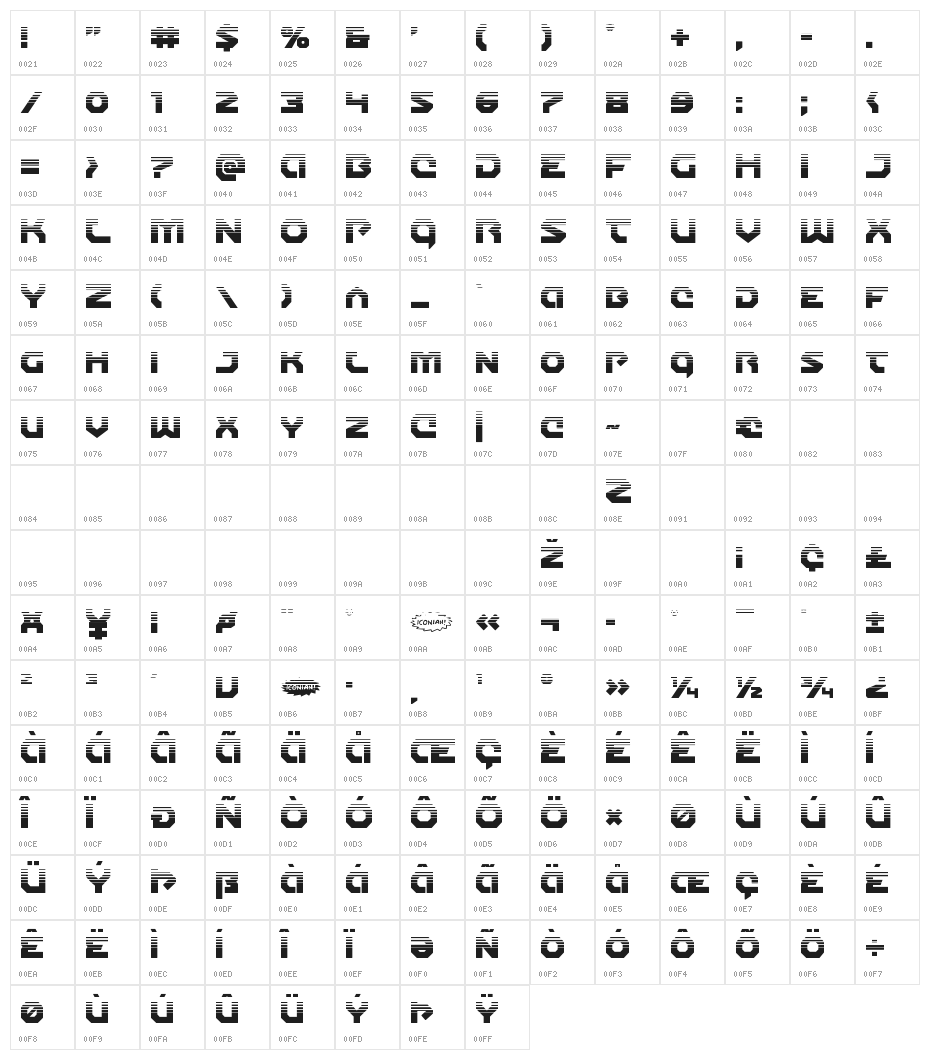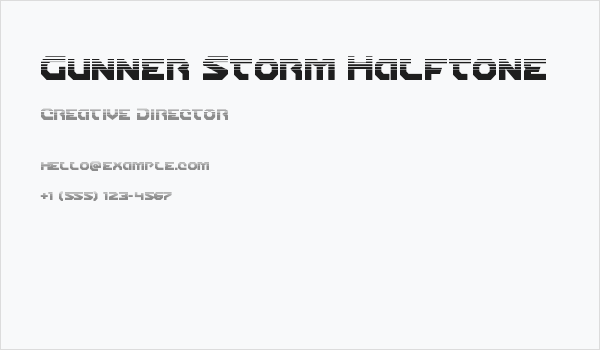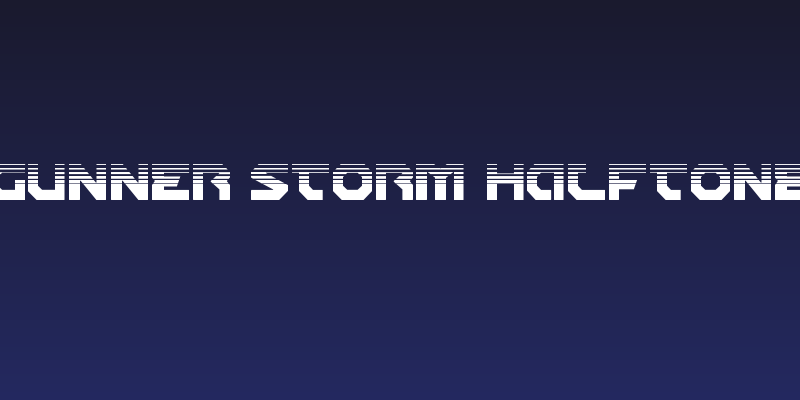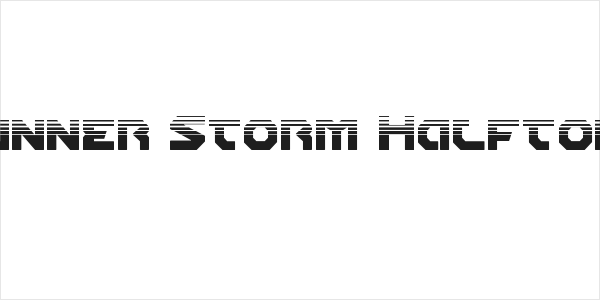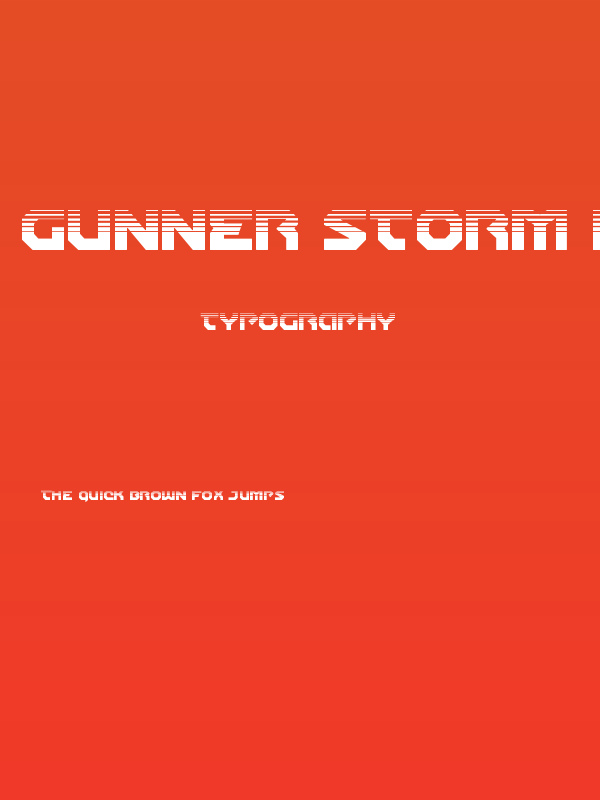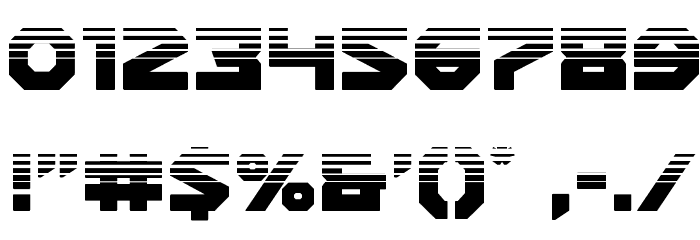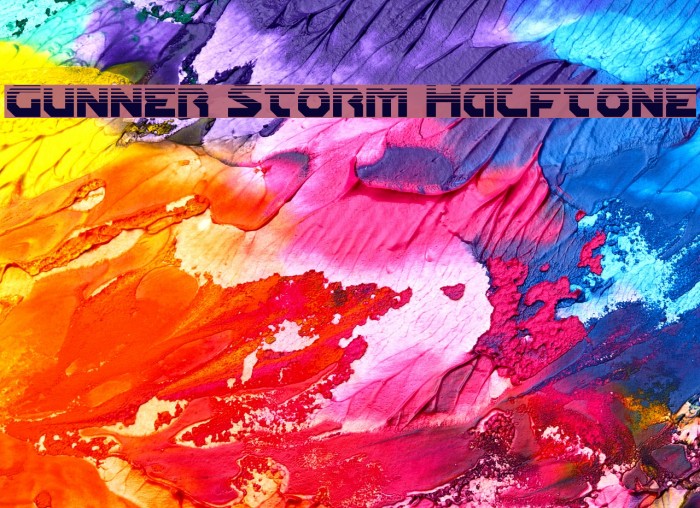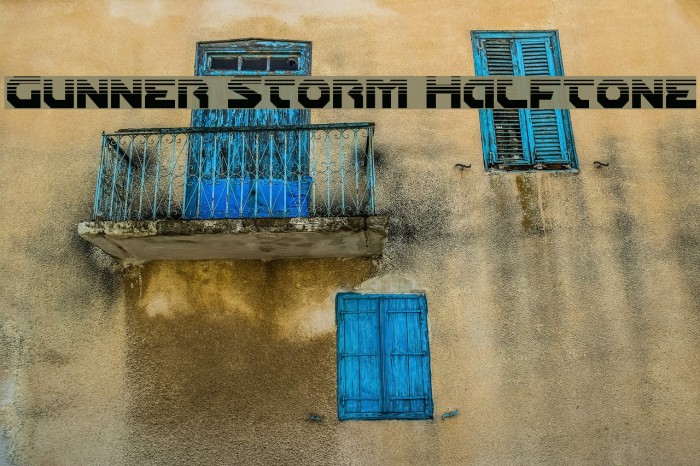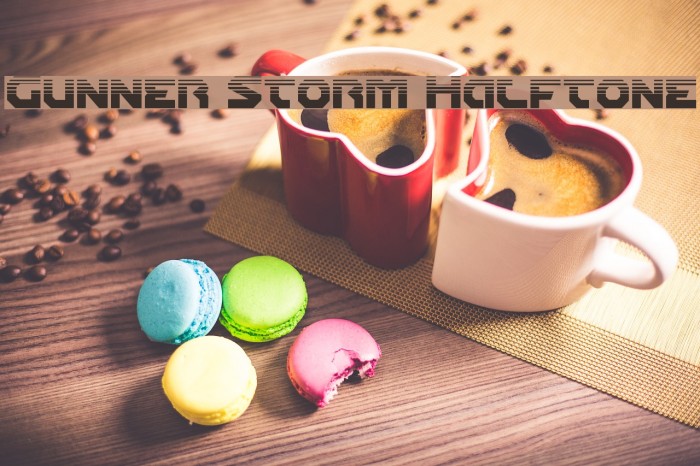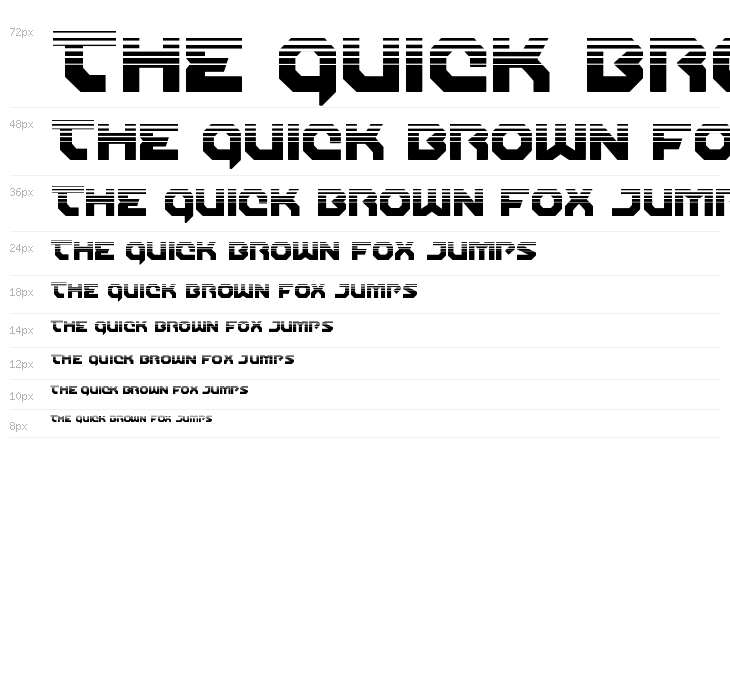
Gunner Storm Halftone Font
Gunner Storm Halftone Description
This font features a bold, futuristic design with a halftone effect that gives it a unique, digital appearance. The characters are constructed with a series of horizontal lines that create a sense of movement and dynamism. The uppercase and lowercase letters maintain a consistent style, with sharp angles and a geometric structure. The numbers and special characters follow the same design principles, ensuring a cohesive look across all glyphs. This font is ideal for projects that require a modern, tech-inspired aesthetic, such as video game titles, sci-fi movie posters, or digital media branding.
| Proposed Projects | Ideal for video game titles, sci-fi movie posters, digital media branding, and tech-inspired designs. |